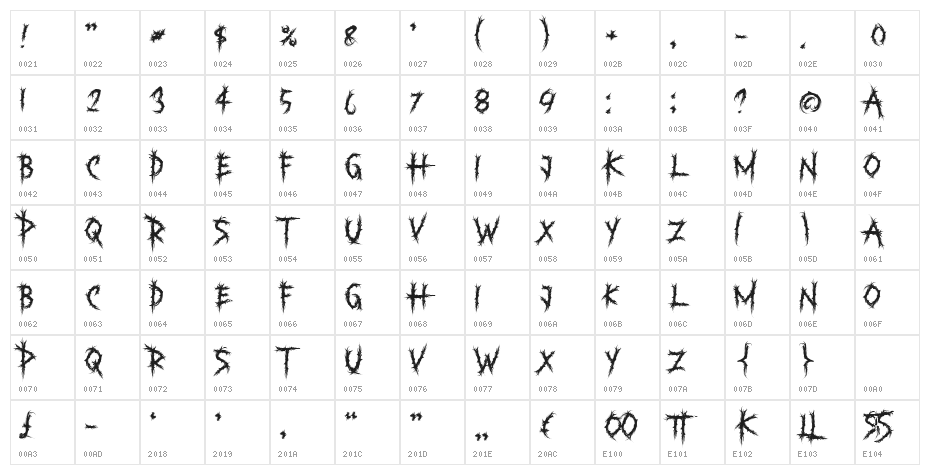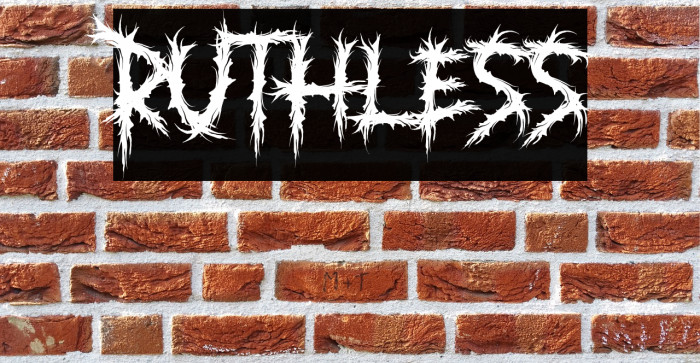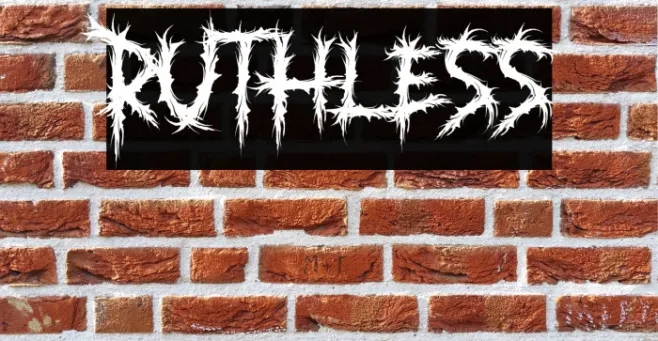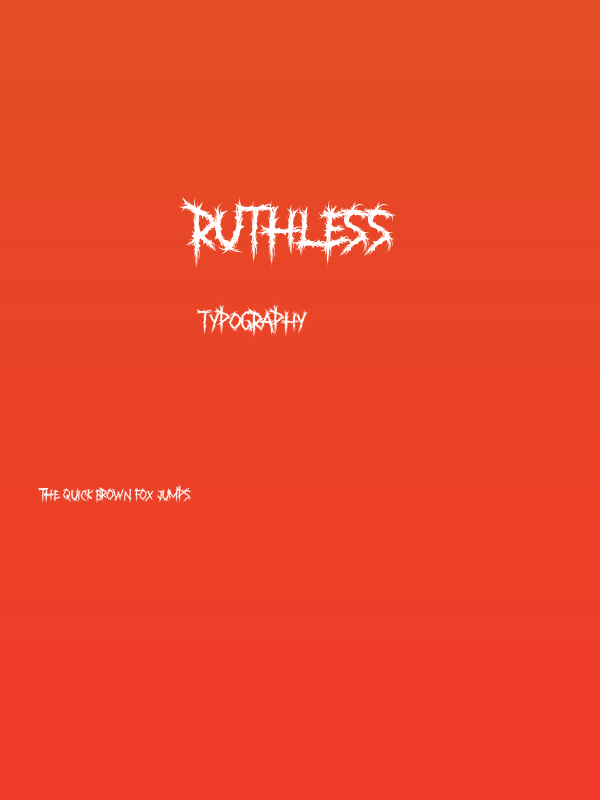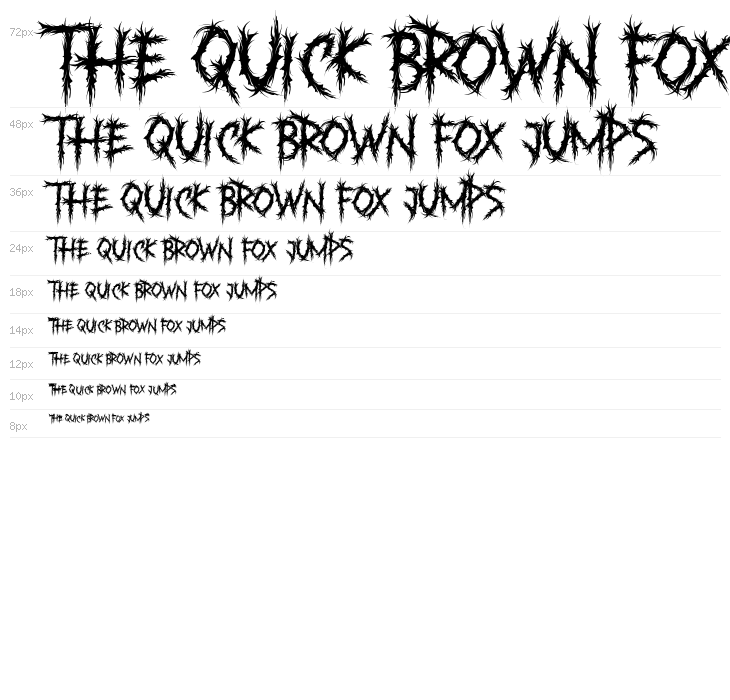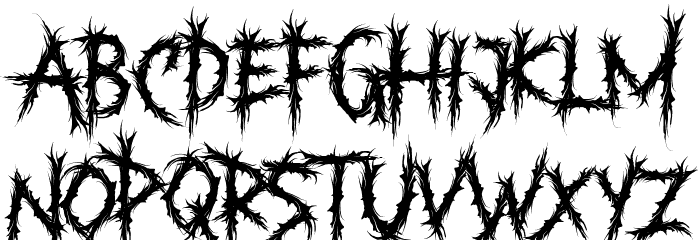
Ruthless Font
Ruthless Description
This font features an aggressive and thorny design, with each character appearing as if it's constructed from sharp, jagged spikes. The letters have a chaotic and wild aesthetic, reminiscent of barbed wire or thorny vines. This style gives the font a menacing and intense appearance, making it stand out with its unique and edgy look. The characters are densely packed with intricate details, creating a sense of movement and energy. This font is ideal for projects that require a bold and dramatic statement, capturing attention with its fierce and untamed style.
| Proposed Projects | Ideal for horror-themed posters, album covers for metal bands, or any project needing an edgy, intense aesthetic. |